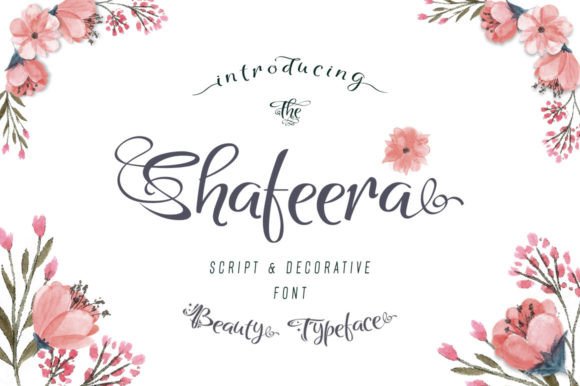
Welcome to the world of Shafeera Script Font: A Dance of Lettering Elegance
Dive into the enchanting realm of Shafeera Script Font, a meticulously crafted masterpiece that embodies the very essence of romance and creativity. Let your words take flight with this flowing script font, designed to captivate hearts and leave an unforgettable impression.
As you explore the depths of Shafeera Script's graceful curves, you'll discover a font that effortlessly dances across the page like a love letter penned with utmost care. Its delicate strokes and flourishing embellishments evoke a sense of timeless elegance, making it the perfect choice for expressing your deepest emotions and heartfelt sentiments.
With Shafeera Script Font at your fingertips, you'll have the power to transform ordinary words into captivating works of art. Whether you're creating posters that speak to the soul, logos that exude sophistication, or musical covers that ignite passions, this font will elevate your designs to new heights of artistry.
Step into the spotlight with Shafeera Script, the font that effortlessly enhances the visual impact of your clothing designs. Let your creations exude a touch of romance, a dash of allure, and an undeniable air of individuality. As your customers immerse themselves in the beauty of your garments, they'll be captivated by the enchanting allure of your lettering, making Shafeera Script Font the ultimate choice for fashion-forward designs.
Unleash your creativity and embark on a journey of design exploration with Shafeera Script Font as your trusted companion. Discover new and exciting ways to express yourself through typography, whether it's crafting invitations that ignite anticipation, designing business cards that leave a lasting impression, or creating marketing materials that captivate attention.